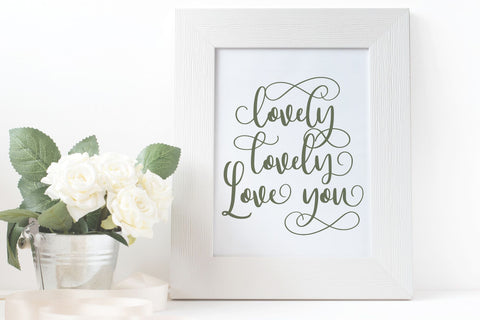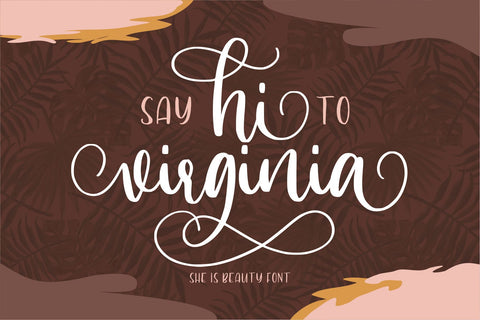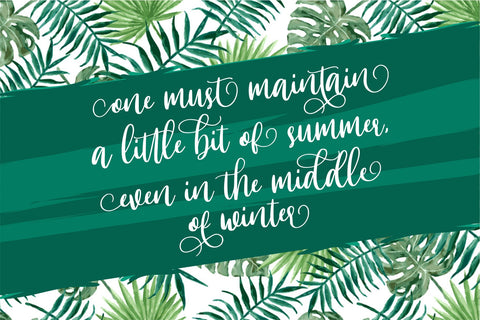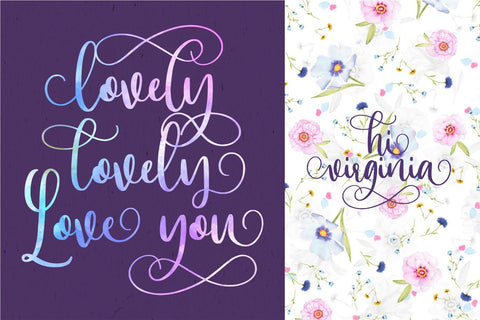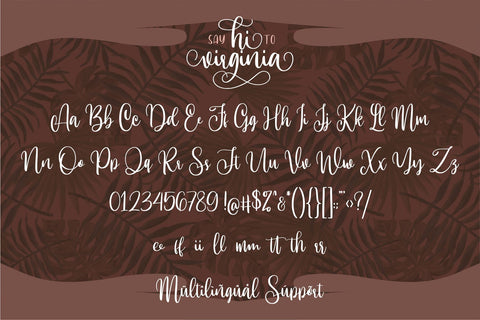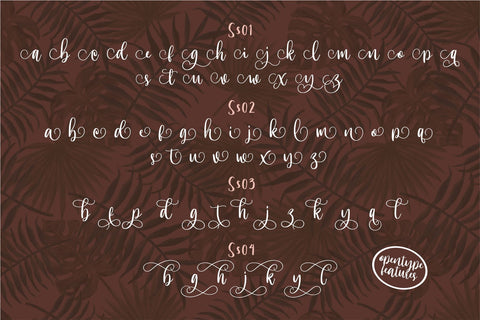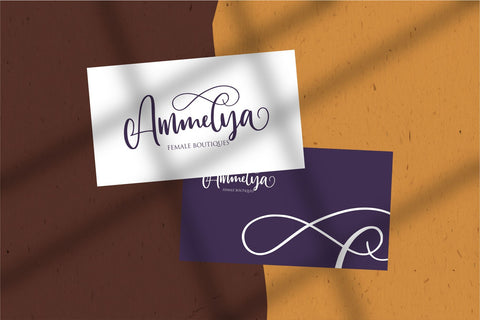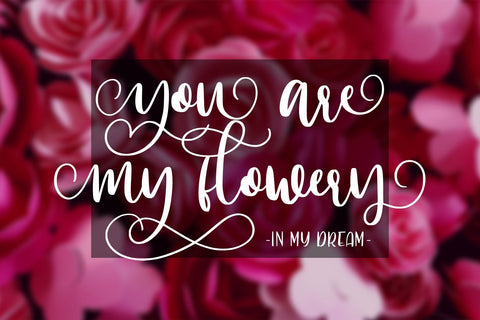
Hi Virginia – a Beauty Font
Hi Virginia – handlettering font is a beauty & modern handlettering font.
I’ts Perfect for logo, invitation, stationery, wedding designs, social media posts, advertisements, product packaging, product designs, label, photography, watermark, crafting, special events or anything. This font include : Hi Virginia OTF-TTF , Standar Ligatures, Stylistic Sets, and also Multilingual support.
- Very great for branding, logotype, handletteing, invitations, or fashion branding.